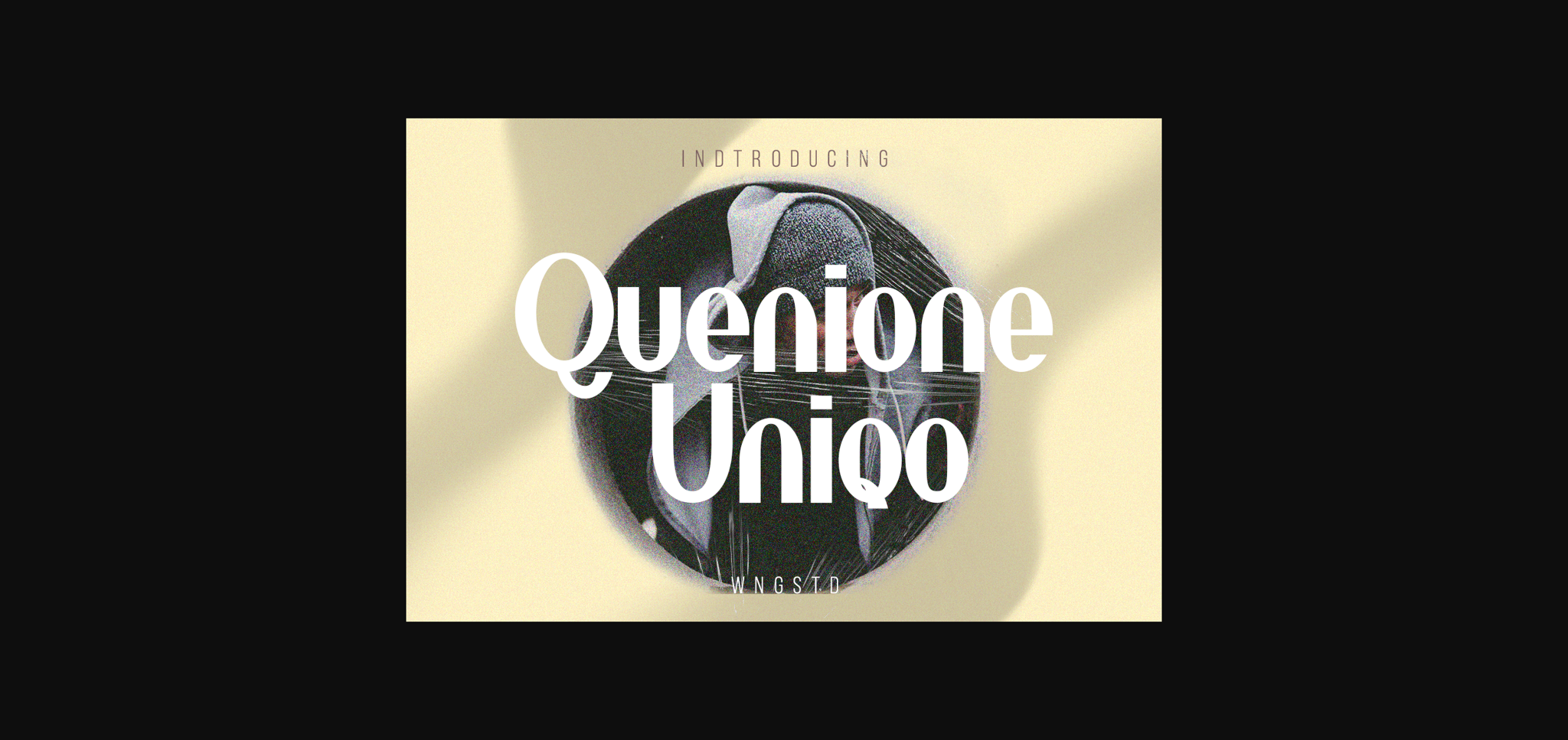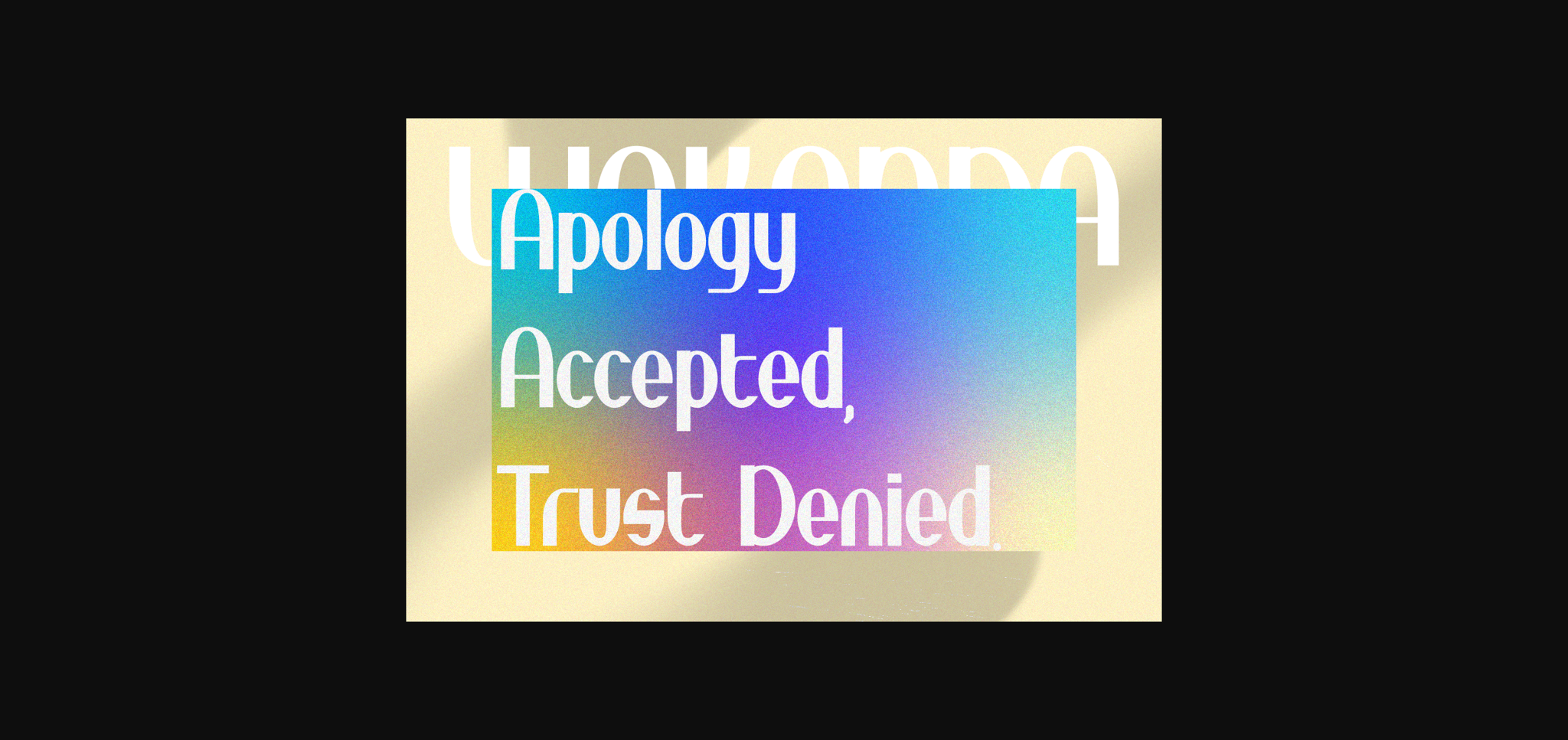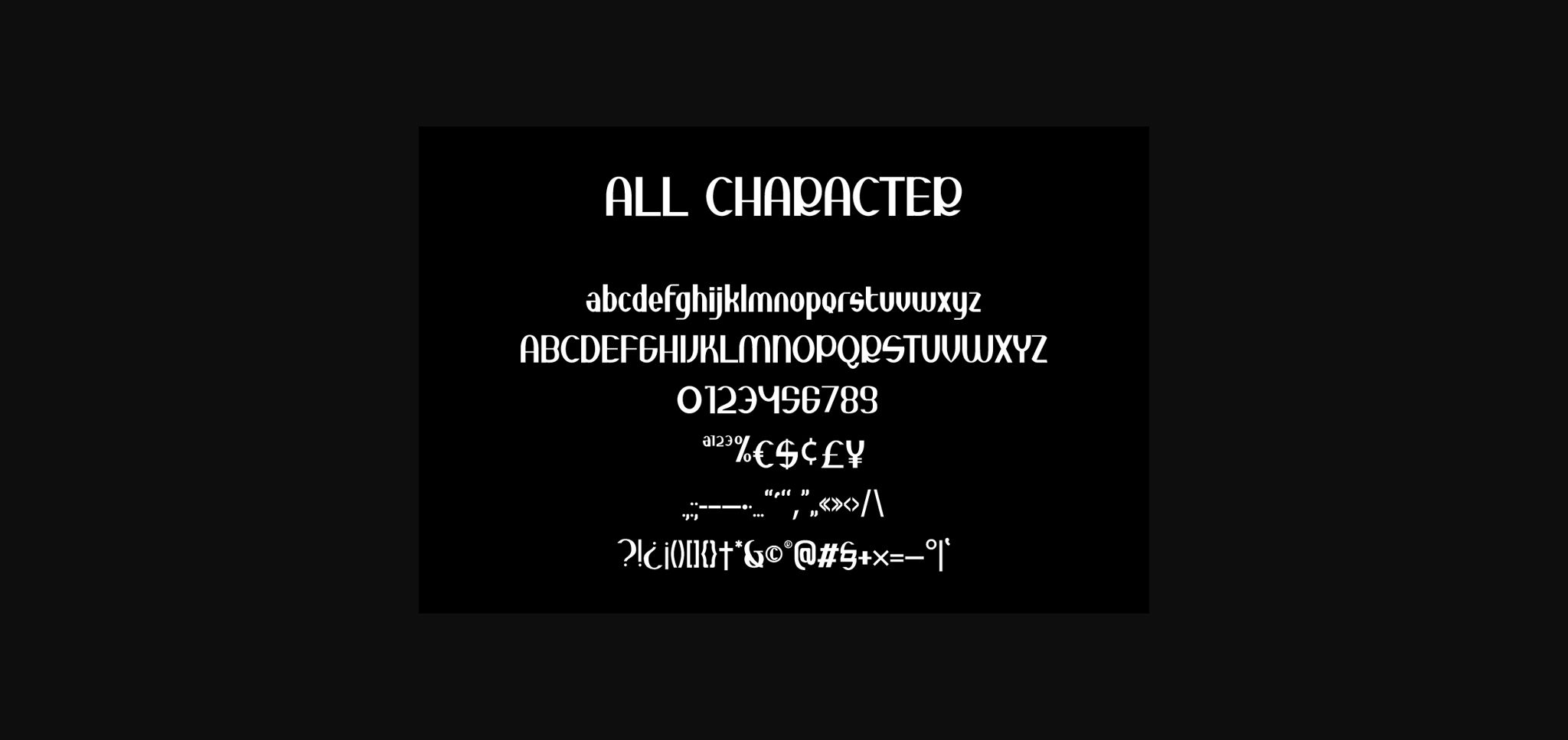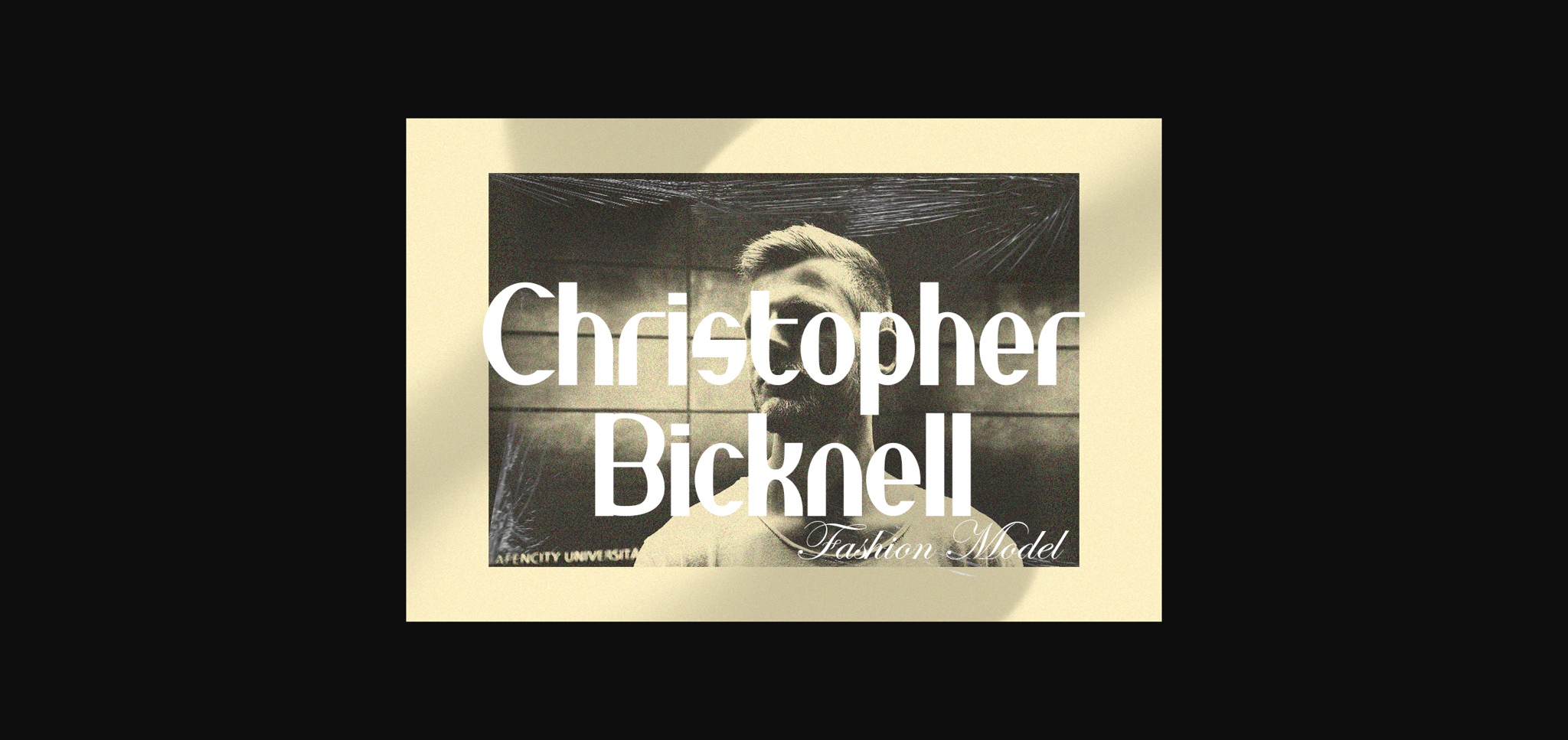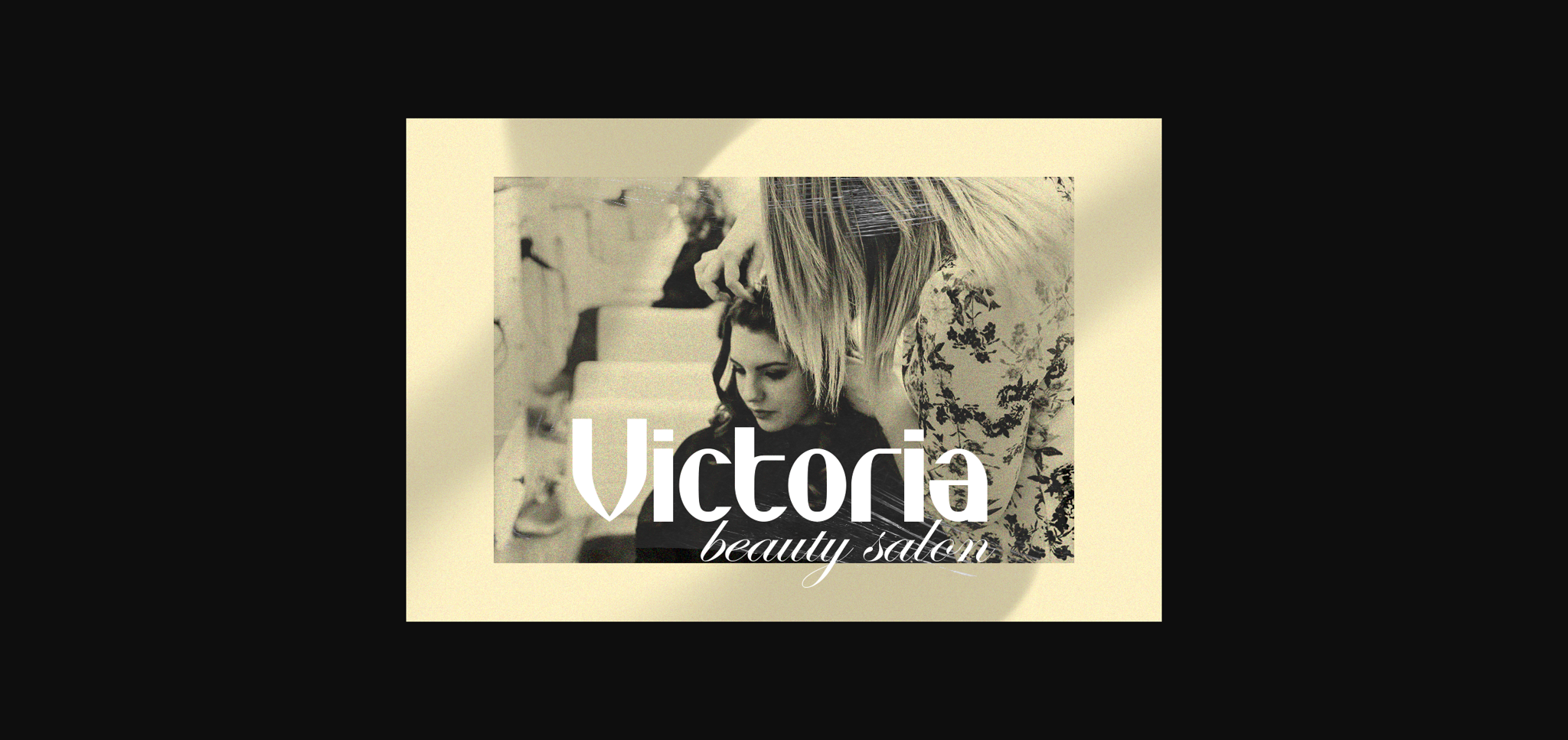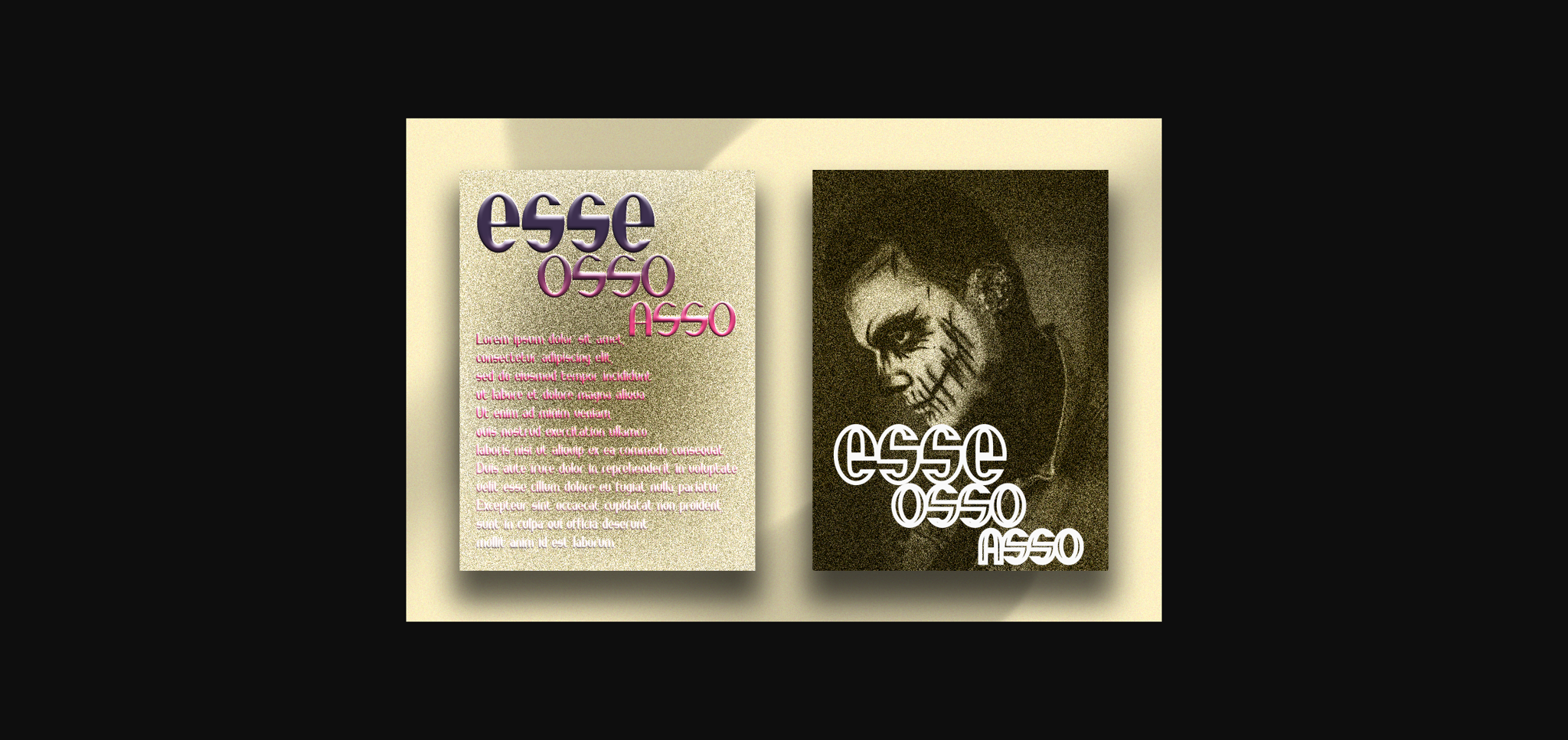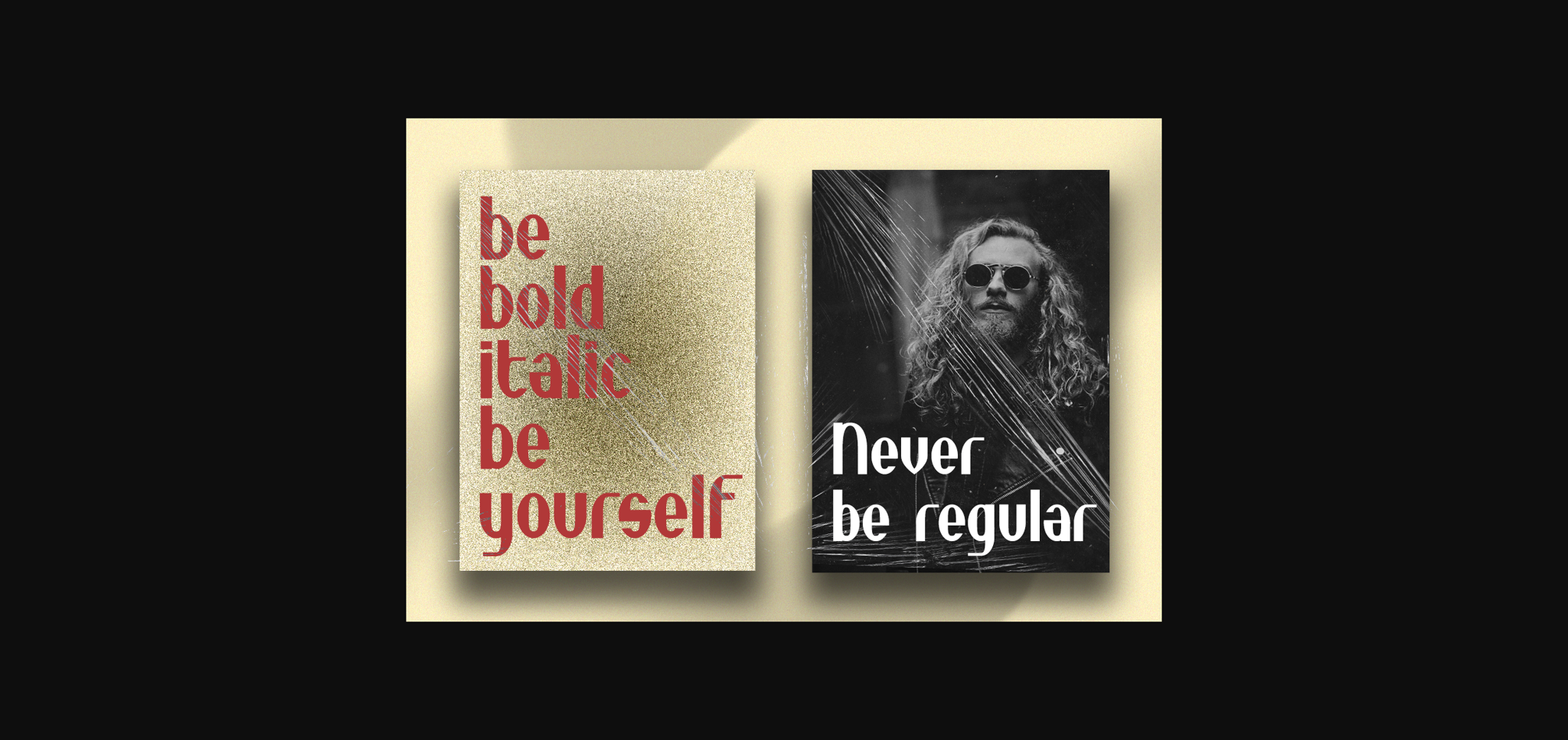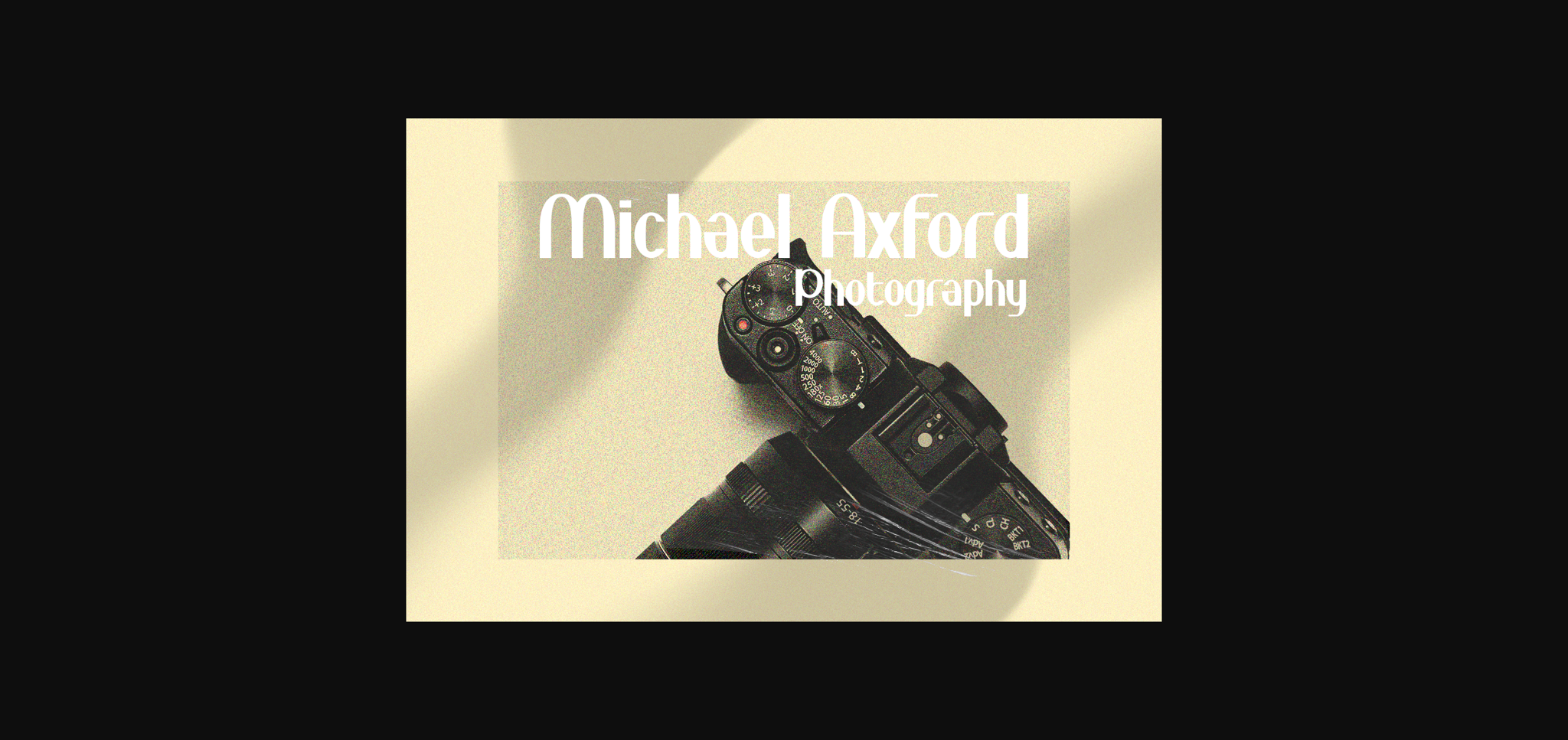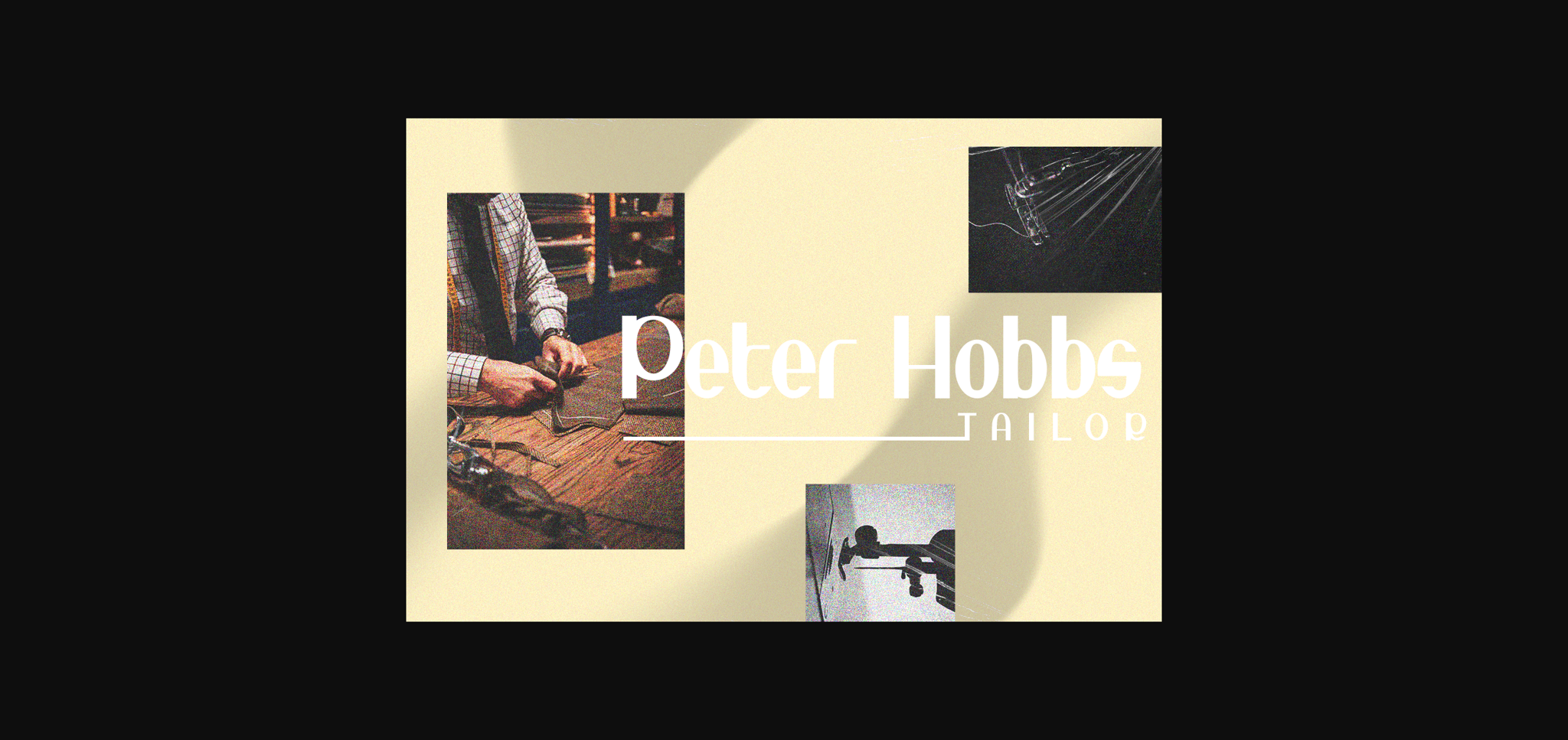
Quenione Unico Font
About Quenione Unico Font
Quenione Unico is a cool and trendy sans serif font. Unique and thick lettered, this font will make each of your designs stand out.